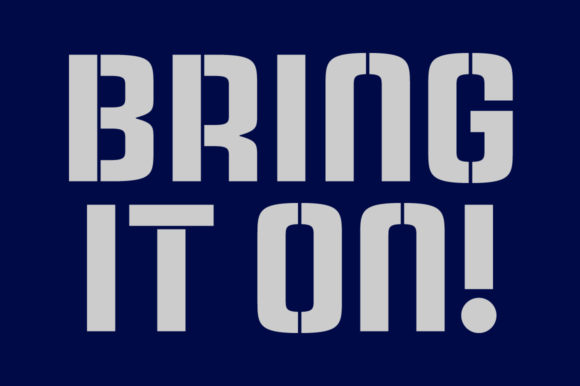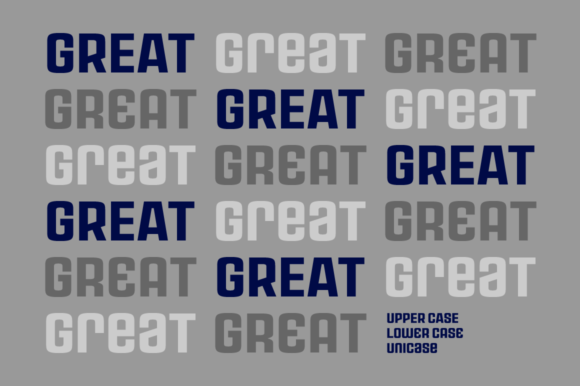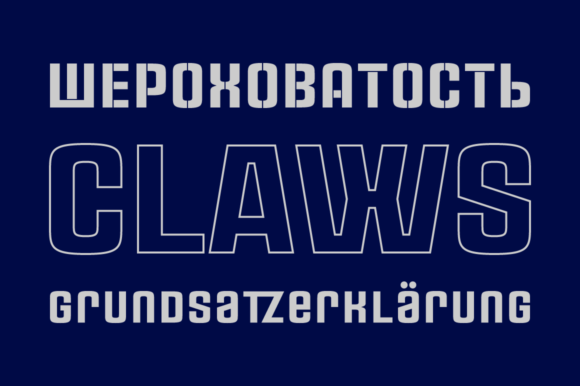
Introduction to Rauda Family Font
As a designer, there’s nothing quite like the rush of excitement that comes with a blank canvas and a blank slate. You envision a stunning visual identity for a client, and your mind starts racing with the endless possibilities. For those moments, having the right design resources can make all the difference. One such gem that has been making waves in the design community is the Rauda Family Font, a sans serif display font crafted by Pablo Balcells for the Graviton Foundry.
With its 8 distinct styles and multi-lingual support, the Rauda Family Font offers unparalleled versatility, making it an invaluable asset for any creative project. Whether you’re working on a high-stakes brand launch or a personal passion project, this font’s sharp angles and solid appearance provide a strong foundation for your visual identity.
Key Features of Rauda Family Font
- Unique and elegant design suitable for various creative projects, including logos, branding, and packaging.
- Includes multiple font styles, including bold, italic, and regular, allowing for versatility in design applications.
- Supports transparent background, making it perfect for designs requiring a subtle, nuanced look.
Honest Review: Rauda Family Font
As a designer, I’m always on the lookout for high-quality design resources to elevate my creative projects. Recently, I stumbled upon the Rauda Family Font, and I’m excited to share my honest review.
- ✨ The font is incredibly versatile, with a wide range of styles and weights to choose from.
- ✨ The transparent background option is a game-changer for designers who need to create designs with a clear background.
- ⚠️ The font may not be suitable for use in print materials, as it can be a bit pixelated at smaller font sizes.
Overall, I’m impressed with the Rauda Family Font. It’s a great addition to any designer’s toolkit, and I appreciate the high quality and transparency of the font. While it may have some limitations, it’s definitely worth considering for your next creative project.
Using Rauda Family Font in Creative Projects
With its high-quality design and transparent background, the Rauda Family Font is perfect for creative projects. You can use it in digital designs, print materials, or even as a design element in presentations.
Tips for Getting the Most Out of Rauda Family Font
To get the most out of the Rauda Family Font, use it in conjunction with other design elements, such as images and graphics. Experiment with different font sizes, colors, and combinations to create unique designs.
The Rauda Family Font is perfect for various design projects, including:
- Brand identity designs
- Print materials (business cards, brochures, etc.)
- Presentation designs